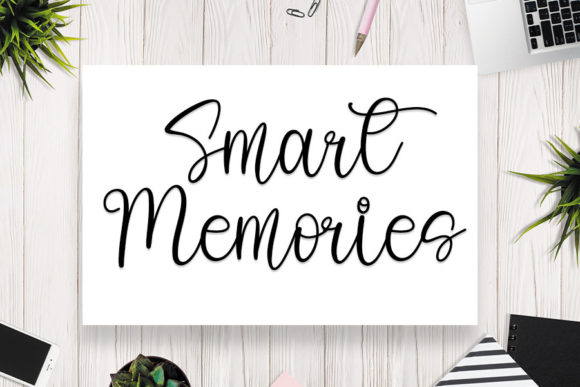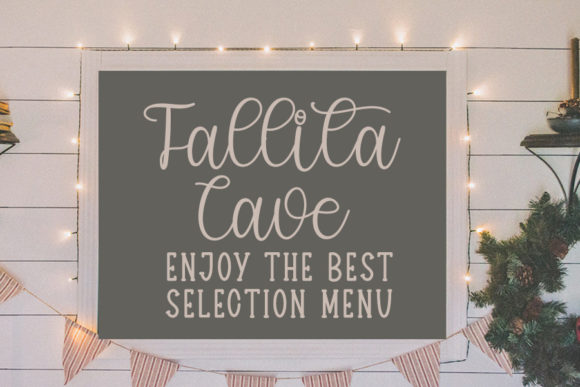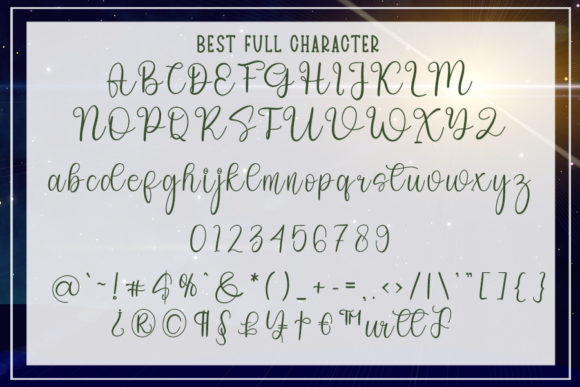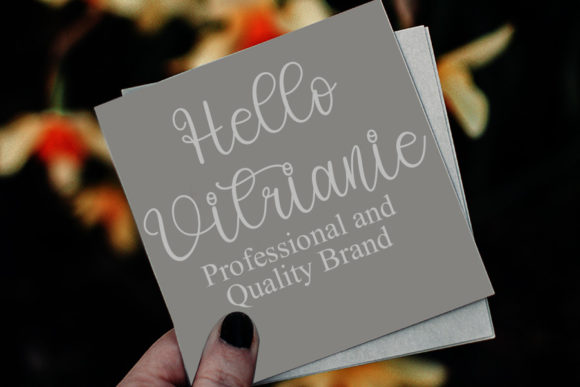
Falling in Love with Futuristic Font: A Designer’s Dream Come True
I’ll never forget the moment I stumbled upon the Futuristic font. I was working on a project for a client who wanted a unique, handwritten look that would make their brand stand out. I had spent hours scouring the internet for the perfect font, but nothing seemed quite right. That was until I saw Futuristic – a thin and friendly handwritten font that completely captured my attention.
Its completely different and timeless style had me hooked from the very first glance. I knew right then and there that I had to use it for my project. And, as it turned out, my client loved it just as much as I did! In this article, I’ll share with you what makes Futuristic font so special, its features, and how to make the most of it in your designs.
An Honest Review of Futuristic Font
- ✨ Unique and Timeless Style: Futuristic font has a one-of-a-kind look that’s both modern and classic.
- ✅ Highly Legible: Despite being a thin font, Futuristic is incredibly easy to read, making it perfect for body text and headings.
- 💕 Friendly and Approachable: The font has a warm, inviting feel that’s perfect for brands that want to connect with their audience.
While Futuristic font is amazing, there are a few things to keep in mind:
- ⚠️ Limited Use of All-Caps: While the font looks great in all-caps, it’s not the most readable. Use it sparingly for emphasis or titles.
- 🤔 Not Ideal for Small Text: While it’s legible, Futuristic font can get a bit lost in very small text sizes. Use it for headlines, subheadings, or larger body text.
- Experiment with OpenType features like stylistic alternates to add some flair to your text.
- Explore the Glyphs panel to access alternative characters and ligatures.
The Story Behind Futuristic Font
Futuristic font was designed with the intention of creating a unique, yet approachable font that would stand out in a digital age. The designer wanted to craft a font that felt both modern and timeless, with a friendly, inviting tone. The result is a font that’s perfect for creative projects, branding, and marketing materials.
| Font Name | Futuristic Font |
| Author | K_IN Studio |
Q: Is Futuristic font suitable for body text?
A: While it’s legible, Futuristic font is best used for headlines, subheadings, or larger body text. For very small text, consider a more traditional font.
Q: Does Futuristic font support OpenType features?
A: Yes, Futuristic font supports OpenType features like stylistic alternates, ligatures, and glyphs.